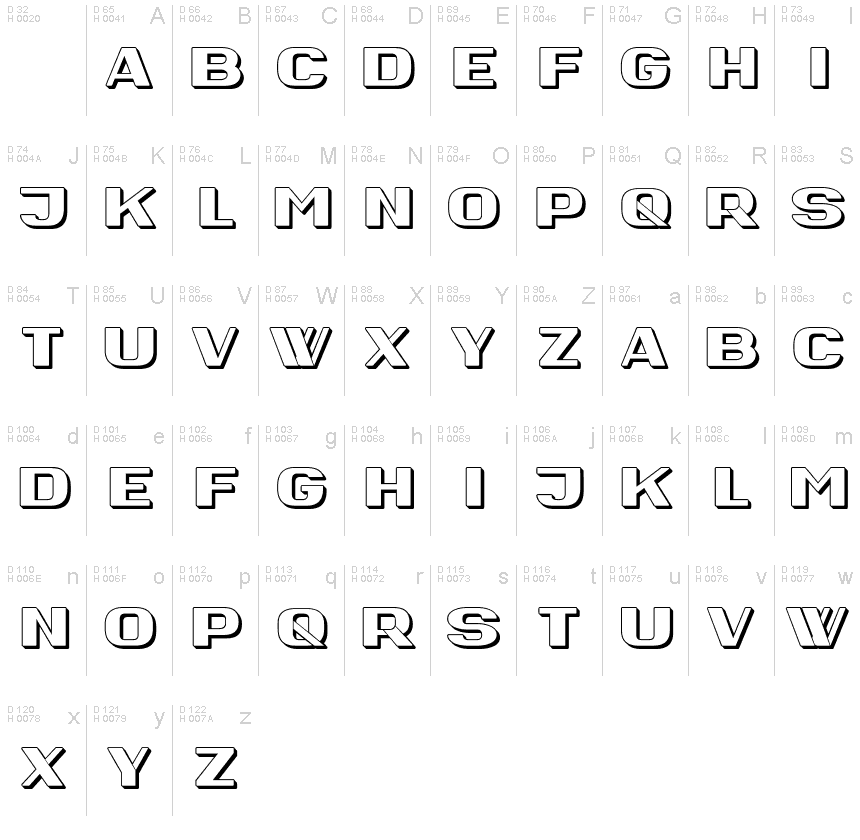
Muela Hollow Regular
Muela Hollow is a bold and striking 3d sans serif font designed by Vladimir Nikolic. Its extra-expanded width and distinctive style make it the perfect choice for a variety of creative projects, from eye-catching headlines to attention-grabbing logos. This versatile font can be used in a range of contexts, including advertising, branding, packaging design and more. With its strong lines and unique shape, Muela Hollow is sure to make your text stand out. Whether you're designing for print or digital media, this semi-bold typeface is an excellent choice for anyone looking to create something truly memorable.